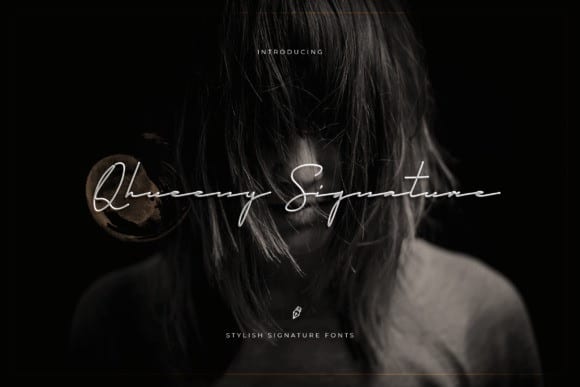
Qhueeny Handwritten Font
NEW FRESH ! Qhueeny Font. It’s an modern signature typeface. Qhueeny Font, including swashes, ligatures,Alternate and International support for most Western Languages is included.